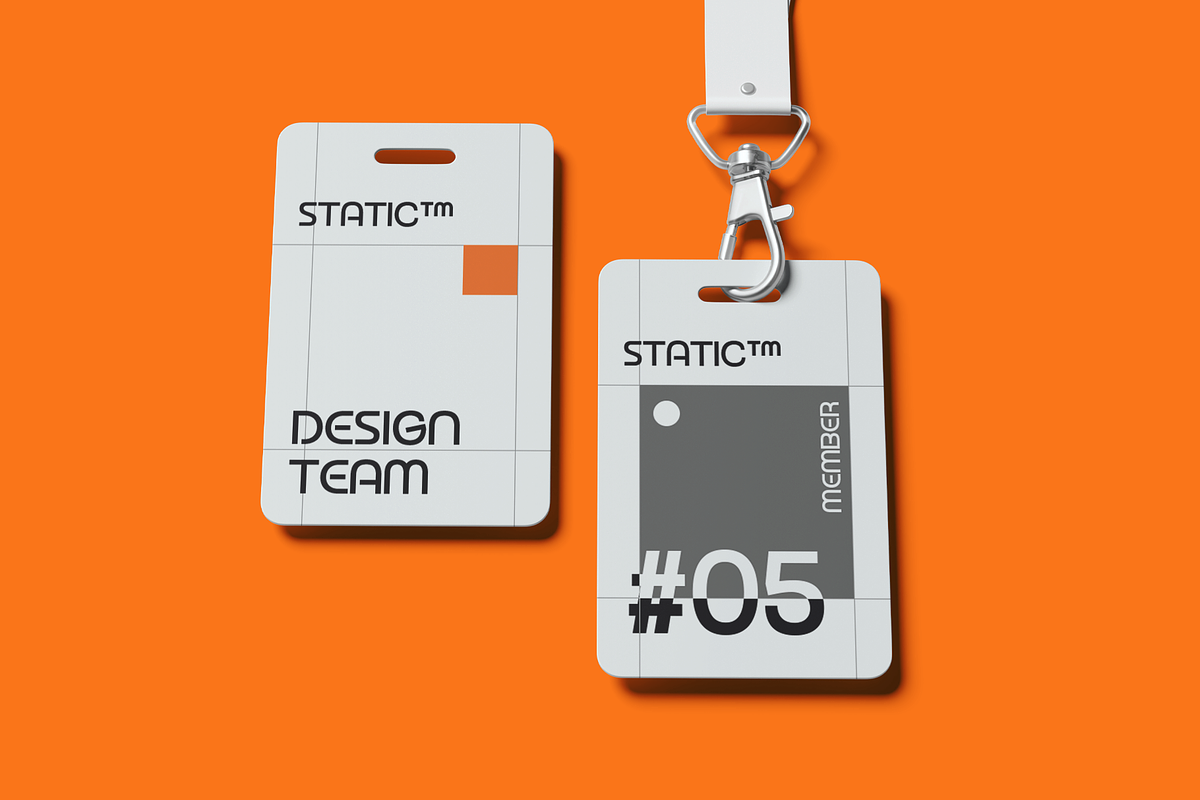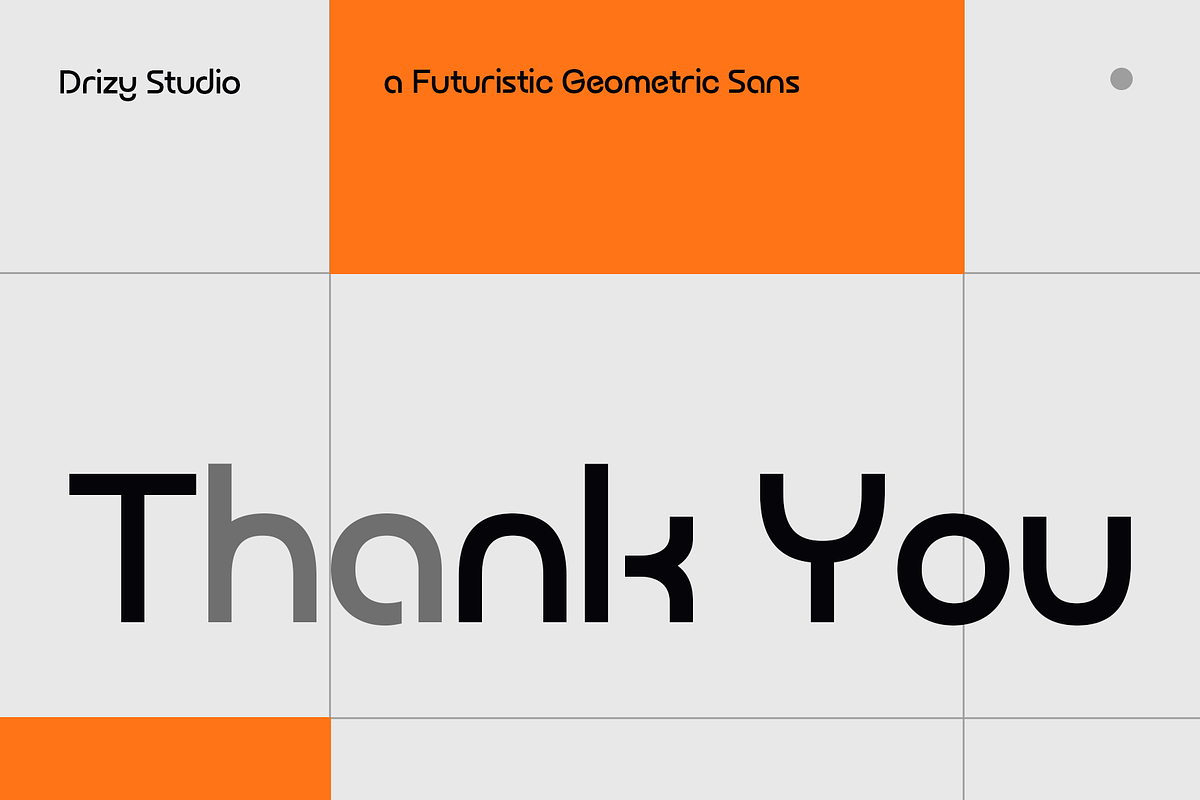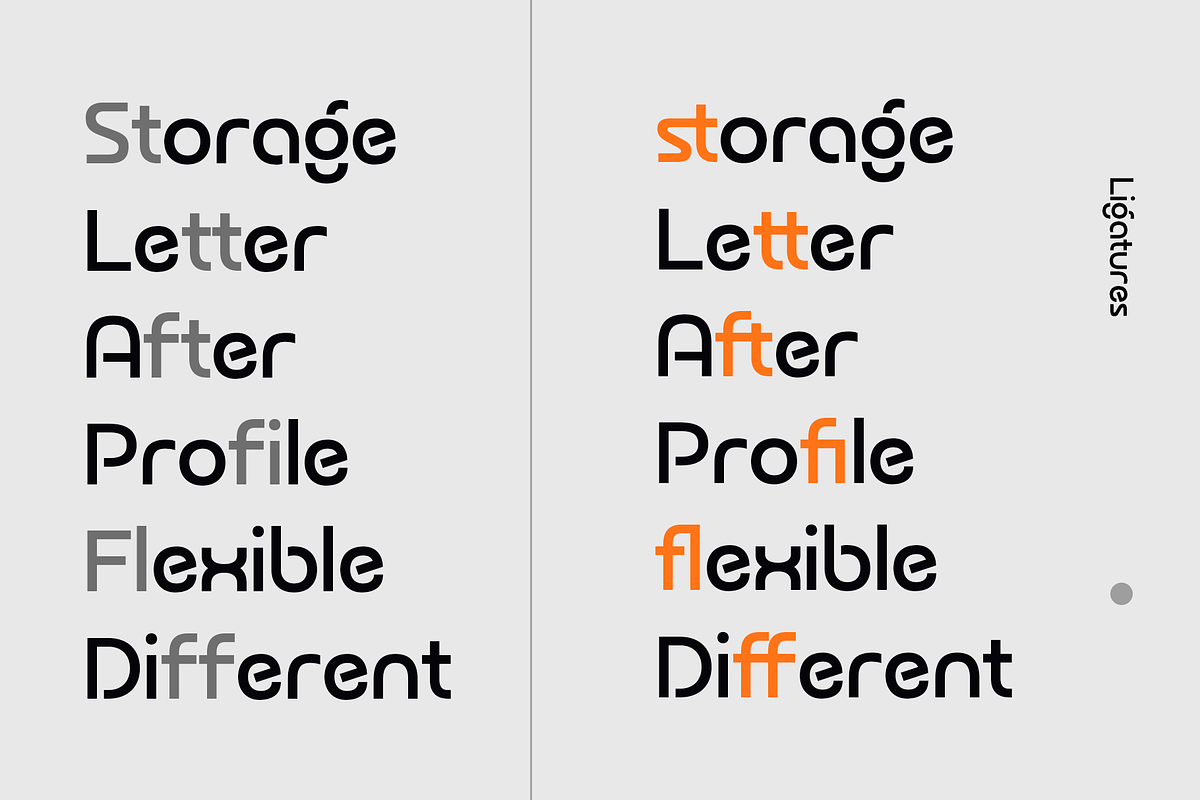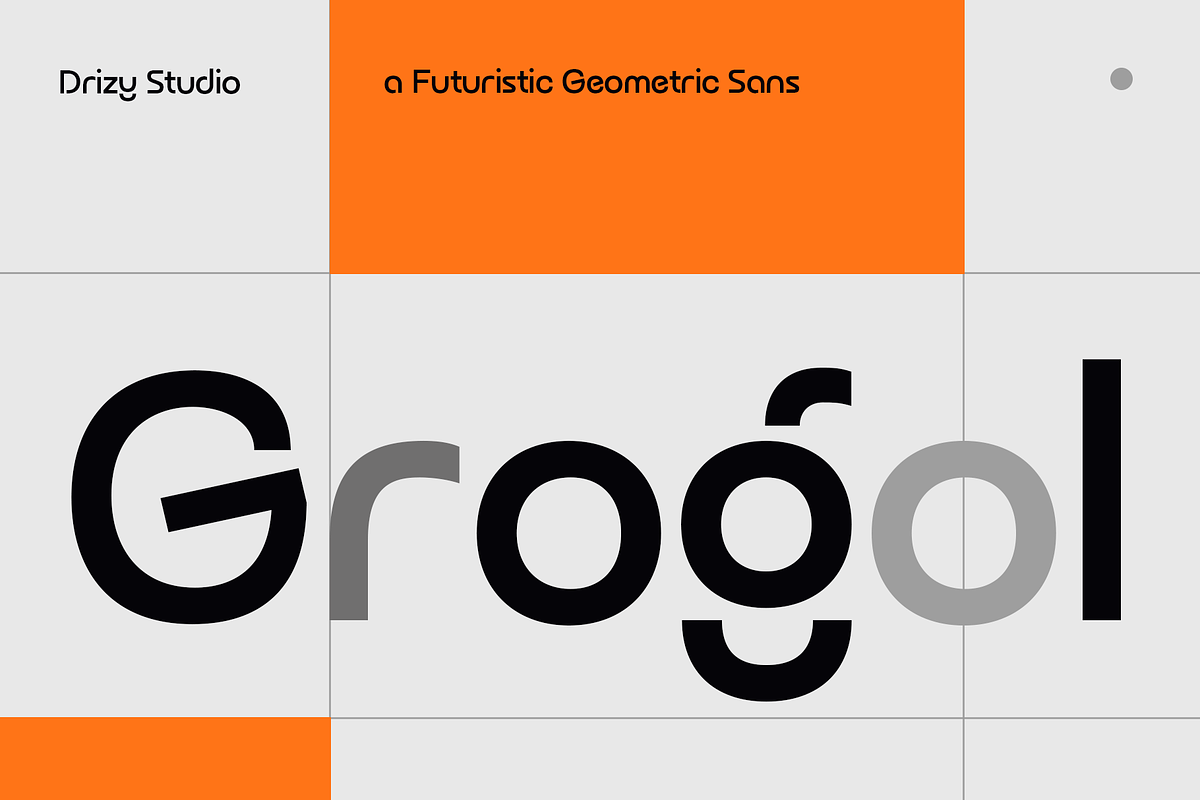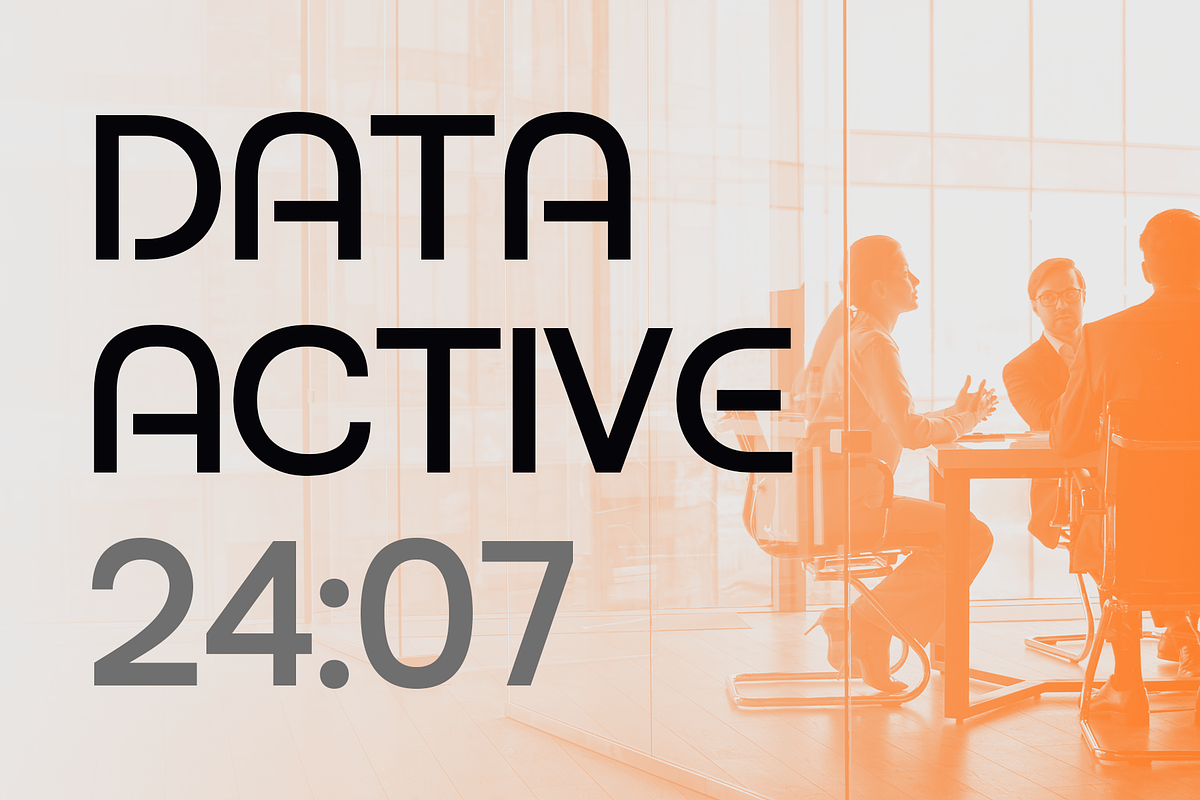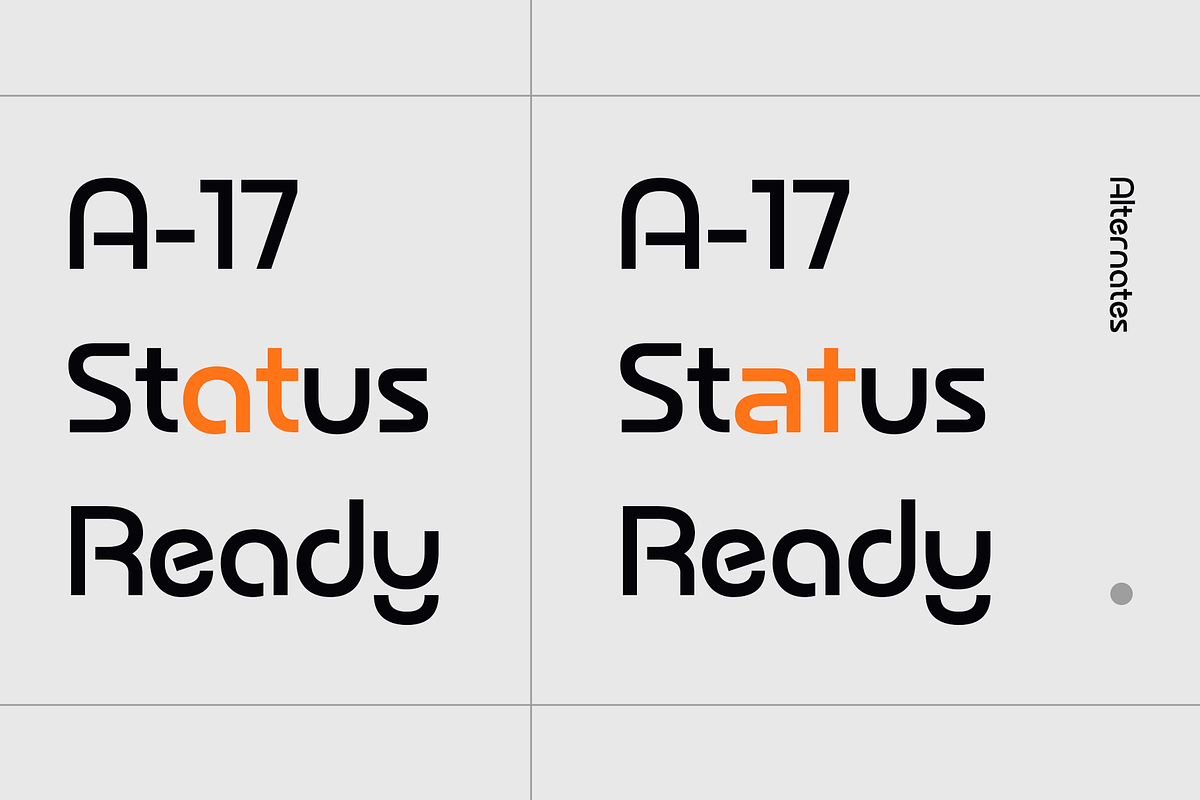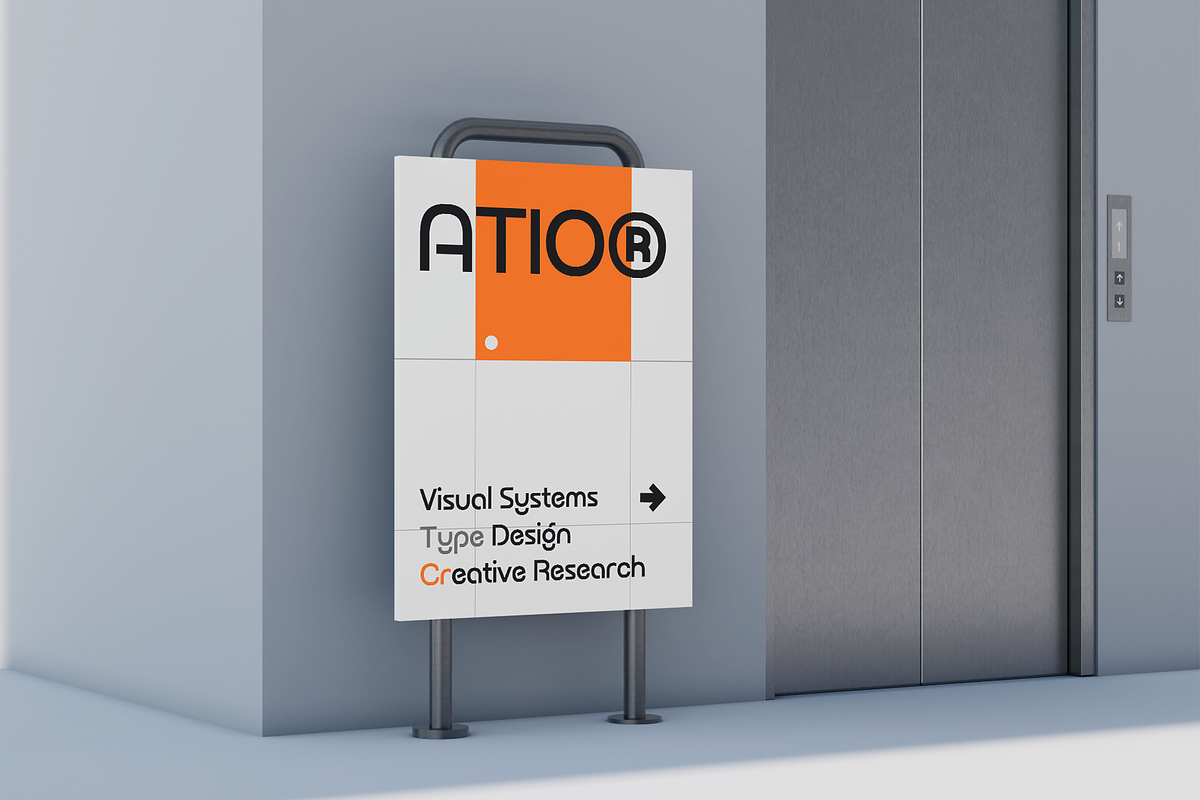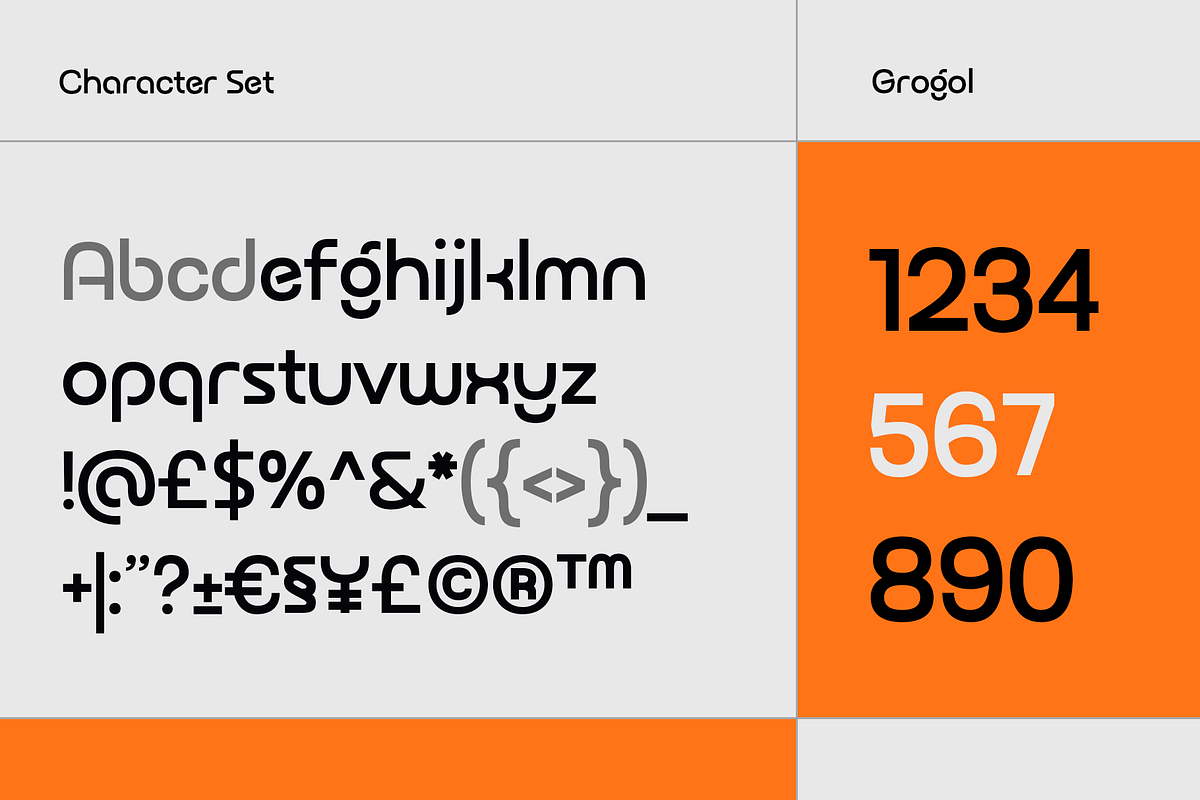
Grogol – Futuristic Geometric Sans
Grogol – Futuristic Geometric Sans Font
Grogol is a futuristic geometric sans font designed with clean lines, bold proportions, and a distinctive modern character. Its structured and minimal letterforms create a sleek, tech-inspired aesthetic while maintaining strong readability, making it ideal for logos, branding, posters, headlines, editorial layouts, packaging, websites, and creative visual identities. Perfect for projects that need a contemporary, geometric, and forward-thinking typographic style.
Grogol – Futuristic Geometric Sans Font features:
Character Set
Punctuation & Numbers
Alternate